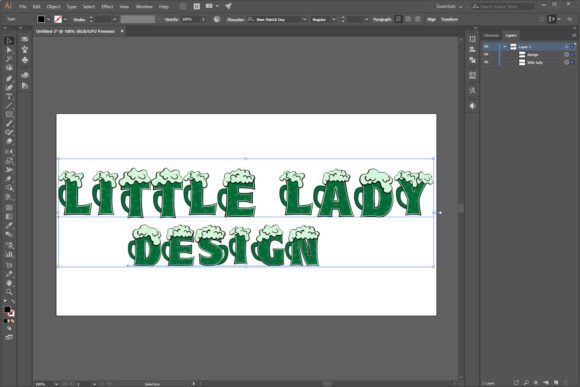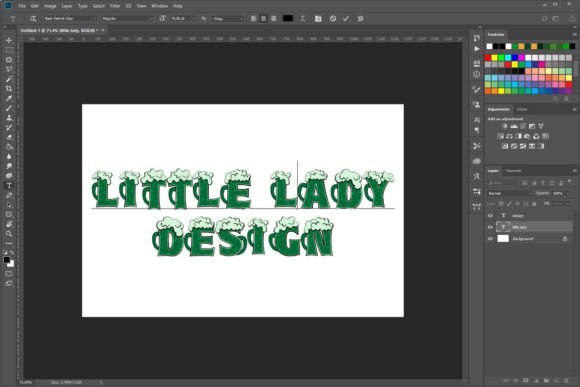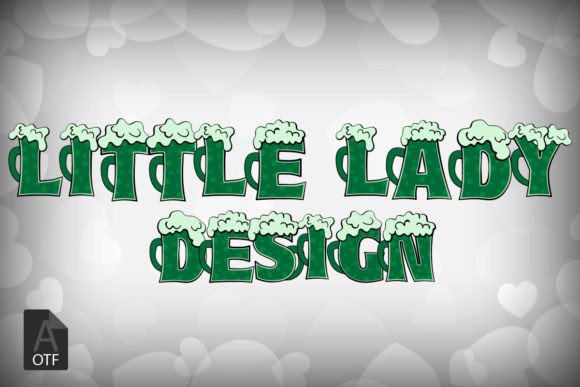
Introducing Beer Patrick’s Day Font: The Ultimate Festive Addition to Your Designs
Are you tired of using the same old fonts for your projects? Do you want to add a touch of fun and festivity to your designs? Look no further than the Beer Patrick’s Day Font! This vibrant and playful color font is perfect for designers and crafters looking to take their work to the next level.
What Makes Beer Patrick’s Day Font So Special?
Beer Patrick’s Day Font is a one-of-a-kind, eye-catching font that is sure to capture the attention of your audience. Its highly detailed design makes it stand out from other fonts, and its festive vibe is perfect for St. Patrick’s Day-themed projects, beer-related designs, and more. Whether you’re working on a craft project, a marketing campaign, or simply want to add some personality to your social media posts, this font is sure to impress.
Key Features of Beer Patrick’s Day Font
- Color Font: Unlike traditional fonts, Beer Patrick’s Day Font comes in a range of colors, allowing you to add an extra layer of depth and visual interest to your designs.
- Highly Detailed: The font’s intricate design makes it perfect for projects where you want to make a bold statement.
- Festive Vibe: The font’s fun and playful design is guaranteed to put a smile on your audience’s faces.
- Easy to Use: Despite its intricate design, Beer Patrick’s Day Font is easy to use and can be incorporated into a wide range of projects.
How to Use Beer Patrick’s Day Font in Your Projects
Beer Patrick’s Day Font is versatile and can be used in a wide range of projects, including:
- Craft Projects: Add a personal touch to your scrapbooking, card-making, and other paper crafting projects.
- Marketing Campaigns: Use the font to create eye-catching social media posts, flyers, and brochures.
- Party Decorations: Create festive party decorations, such as banners, garlands, and invitations.
- Digital Art: Incorporate the font into your digital art projects, such as illustrations and graphic designs.
Why Designers and Crafters Love Beer Patrick’s Day Font
Beer Patrick’s Day Font has quickly become a favorite among designers and crafters, and for good reason. Its unique design and festive vibe make it the perfect addition to any project. Here are just a few reasons why designers and crafters love this font:
- Unique Design: The font’s highly detailed design sets it apart from other fonts on the market.
- Easy to Use: Despite its intricate design, the font is easy to use and can be incorporated into a wide range of projects.
- Versatile: The font can be used in a wide range of projects, from craft projects to marketing campaigns.
- Fun and Festive: The font’s fun and playful design is guaranteed to add a touch of personality to your projects.
| Font Name | Beer Patrick’s Day Font |
| Author | Little Lady Design |
If you’re looking for a fun and festive font to add to your designs, look no further than Beer Patrick’s Day Font. Its highly detailed design, color options, and easy-to-use format make it the perfect addition to any project. Whether you’re a designer, crafter, or simply someone who loves to add a personal touch to your work, this font is sure to impress. So why wait? Fall in love with Beer Patrick’s Day Font and bring your projects to the highest levels!